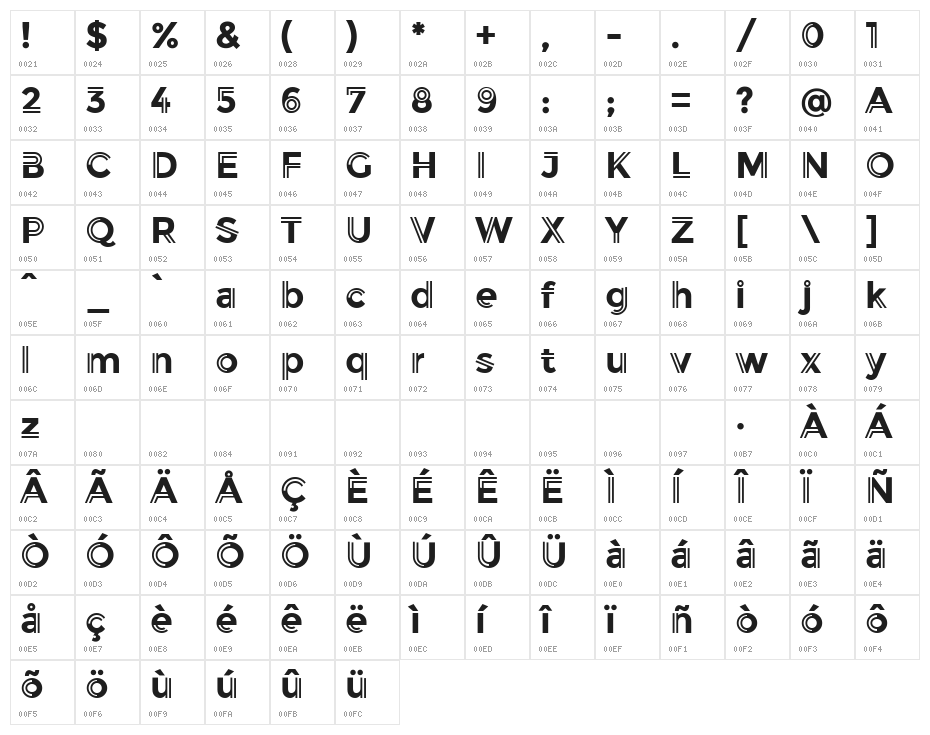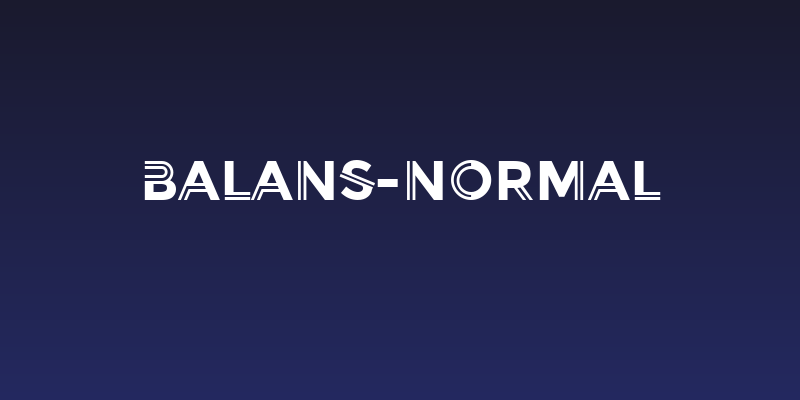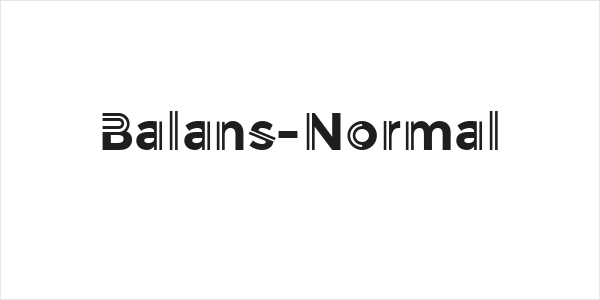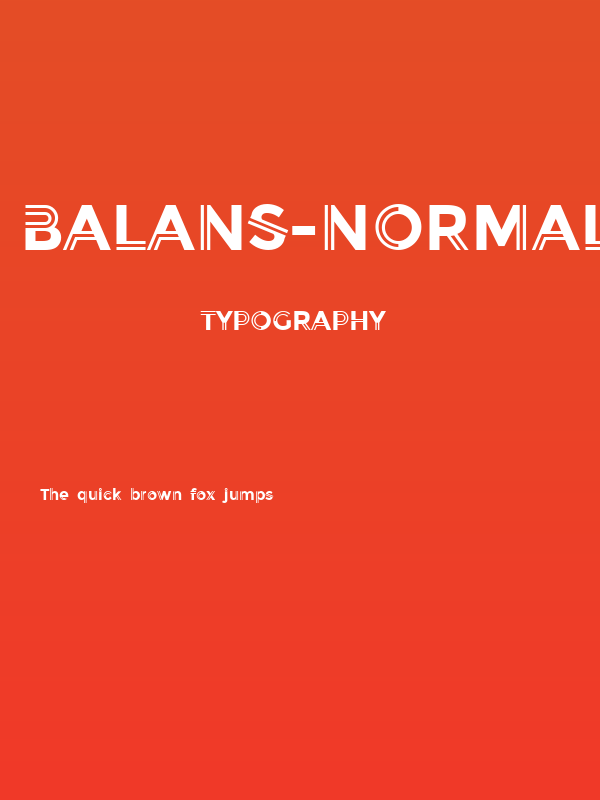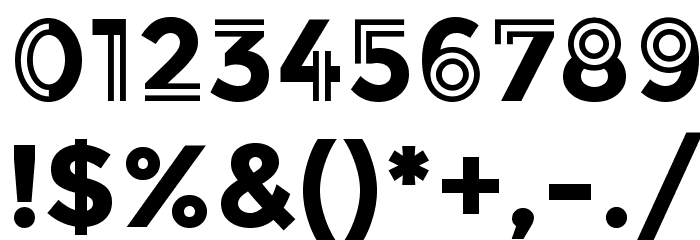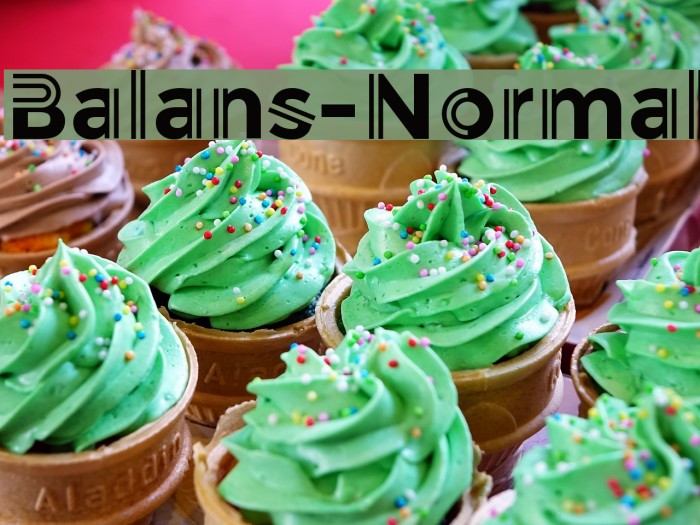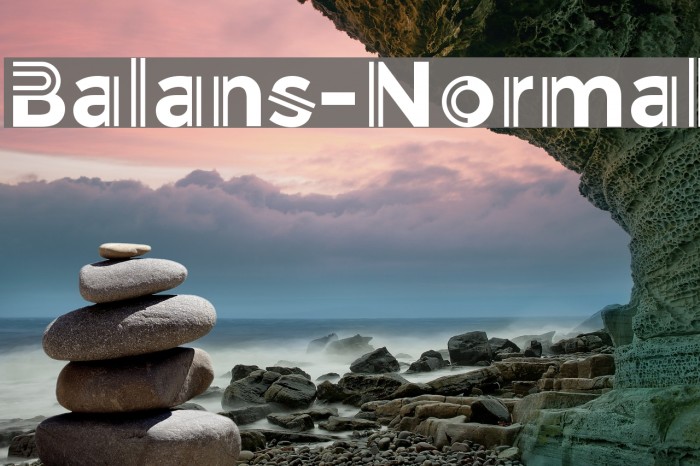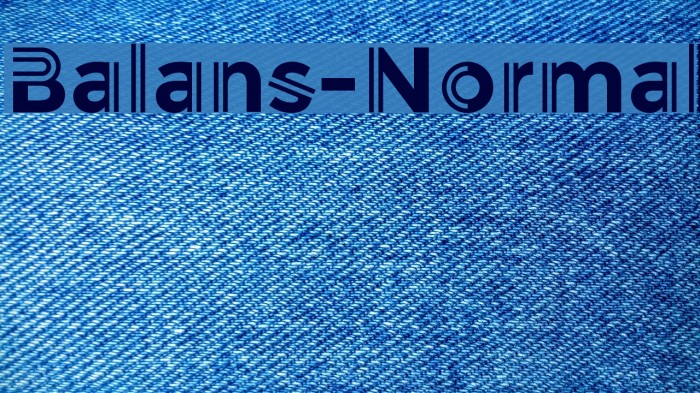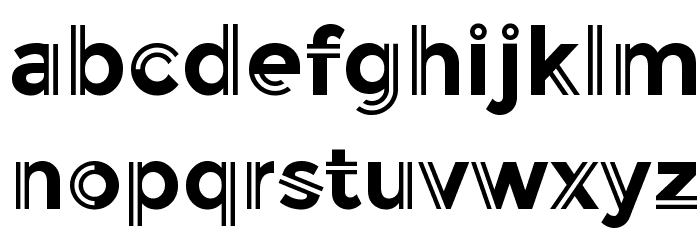
Balans-Normal Font
Balans-Normal Description
This font features a bold, geometric design with a modern aesthetic. The uppercase letters are characterized by strong, clean lines and a uniform thickness, giving them a solid and impactful appearance. The lowercase letters maintain the geometric style, with some unique elements such as the open counters in letters like 'a' and 'e'. The numerals are equally bold and consistent, ensuring readability and a cohesive look. Special characters are designed to match the overall style, with a focus on clarity and modernity. This font is versatile, suitable for various design needs where a contemporary and bold statement is required.
| Proposed Projects | Ideal for branding, advertising, headlines, and digital media projects where a strong, modern presence is desired. |